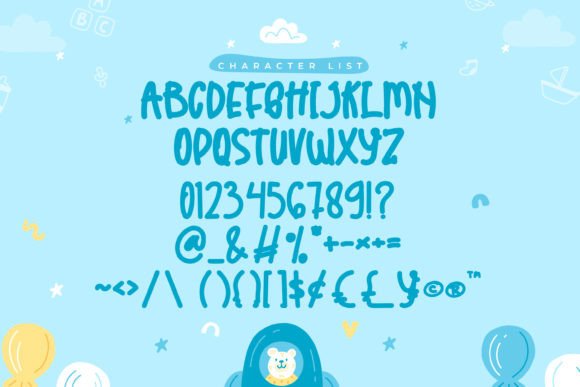
Introducing New Born Font: The Playful and Cute Display Font for Children and School Projects
Are you looking for a font that embodies trendiness and authenticity for your children’s activity or school project? Look no further than New Born Font, a playful and cute display font designed to capture the imagination of young minds. In this article, we’ll explore the features and benefits of New Born Font, and why it’s the perfect choice for any project aimed at kids.
The Inspiration Behind New Born Font
New Born Font is designed to evoke a sense of playfulness and innocence, making it ideal for children’s activities, school projects, and even baby-related branding. The font’s creator aimed to craft a typeface that would be both fun and engaging, while also being easy to read and understand. The result is a font that is not only visually appealing but also highly functional.
Key Features of New Born Font
- Playful and Cute Design: New Born Font boasts a playful and cute design that is sure to capture the attention of young minds.
- Trendiness and Authenticity: The font’s modern design ensures that it stays on-trend, while its authenticity makes it relatable to kids and adults alike.
- Display Font: New Born Font is specifically designed as a display font, making it perfect for headlines, titles, and other attention-grabbing applications.
- Easy to Read: Despite its playful design, New Born Font remains easy to read, ensuring that your message gets across clearly.
Use Cases for New Born Font
New Born Font is a versatile typeface that can be used in a variety of contexts, including:
- Children’s Activities: New Born Font is perfect for children’s activity sheets, worksheets, and other educational materials.
- School Projects: The font is ideal for school projects, presentations, and reports, adding a touch of fun and personality to academic work.
- Baby-Related Branding: New Born Font’s playful and cute design makes it a great fit for branding related to babies and children, such as baby clothing, toys, and nursery decor.
Benefits of Using New Born Font
Using New Born Font offers several benefits, including:
- Engage Your Audience: The font’s playful design helps to engage your audience, making your content more enjoyable to read and interact with.
- Stand Out from the Crowd: New Born Font’s unique design ensures that your content stands out from the crowd, making it more noticeable and memorable.
- Convey a Sense of Fun and Approachability: The font’s playful and cute design conveys a sense of fun and approachability, making it perfect for brands and educators looking to connect with their audience.
Tips for Using New Born Font Effectively
To get the most out of New Born Font, follow these tips:
- Use it for Headlines and Titles: New Born Font is designed as a display font, making it perfect for headlines and titles.
- Pair it with Other Fonts: Experiment with pairing New Born Font with other fonts to create a unique and visually appealing typography combination.
- Use it Consistently: Use New Born Font consistently across your content to create a cohesive and recognizable brand identity.
New Born Font is a playful and cute display font that embodies trendiness and authenticity, making it the perfect choice for any children’s activity or school project. With its easy-to-read design and versatile use cases, New Born Font is sure to engage your audience and convey a sense of fun and approachability. Whether you’re an educator, brand, or simply looking for a fun and creative font, New Born Font is a great choice.
FAQs About New Born Font
- What is New Born Font?: New Born Font is a playful and cute display font designed for children’s activities, school projects, and baby-related branding.
- Is New Born Font easy to read?: Yes, despite its playful design, New Born Font remains easy to read and understand.